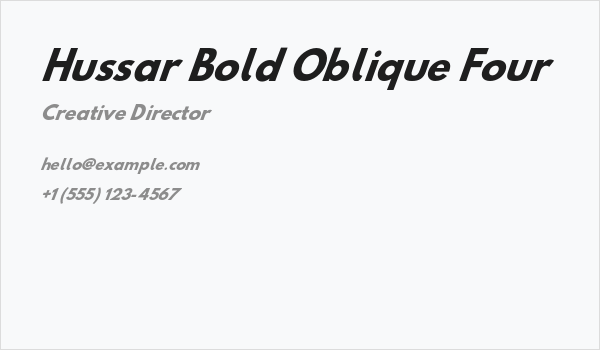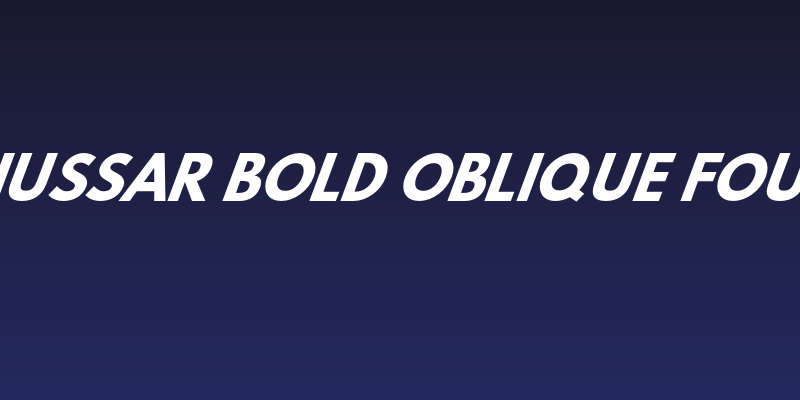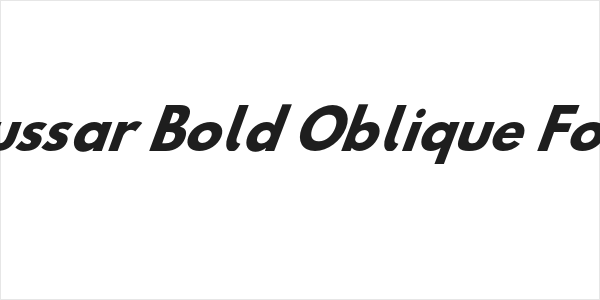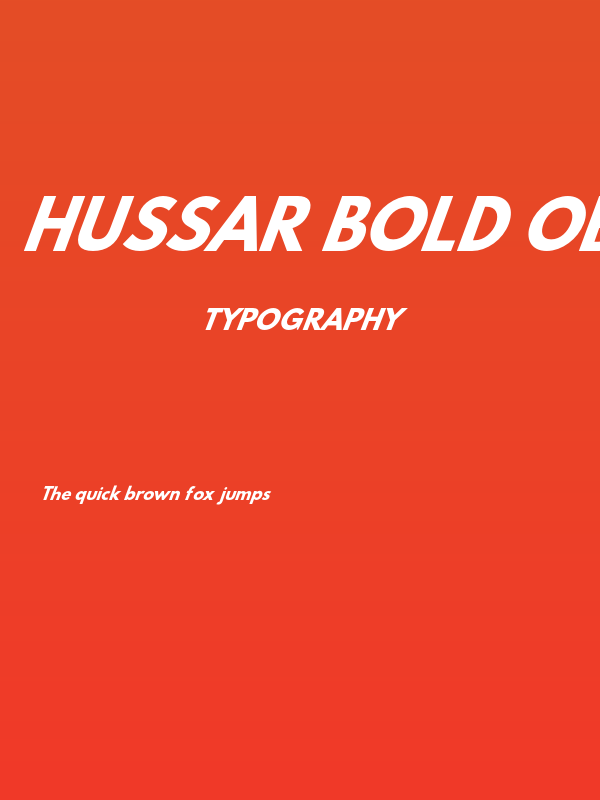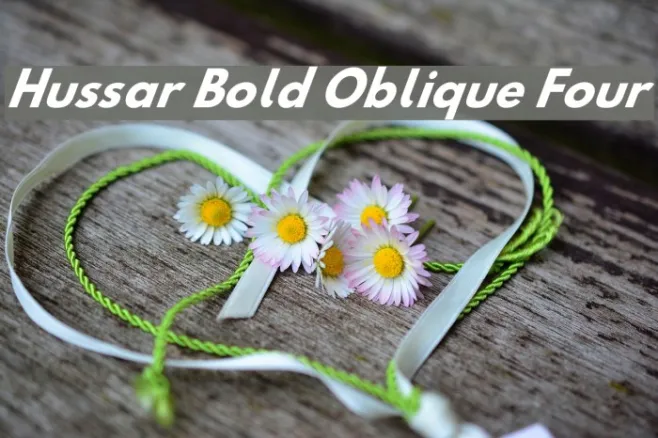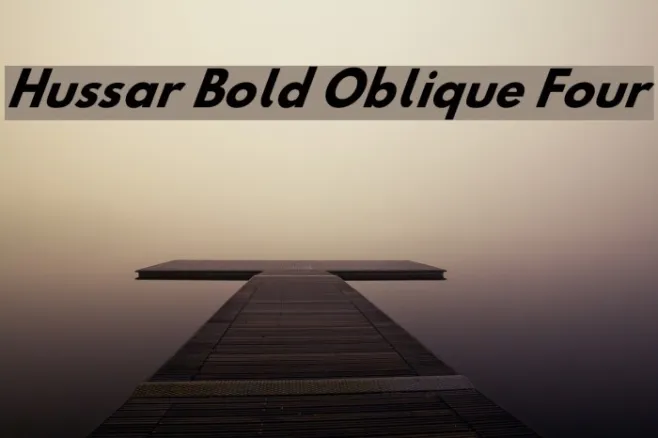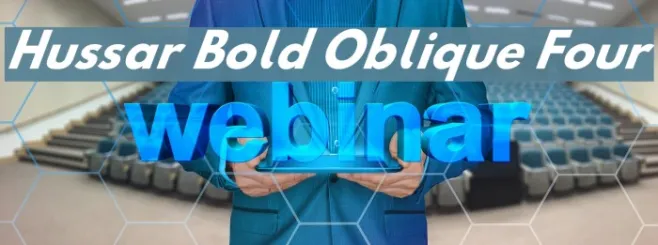
Hussar Bold Oblique Four Font
Hussar Bold Oblique Four Description
This font exhibits a bold and dynamic style with an oblique slant, giving it a sense of motion and energy. The characters are well-defined with a strong presence, making it suitable for impactful designs. The uppercase and lowercase letters maintain a consistent weight, ensuring readability and balance. The numerals are clear and robust, complementing the overall bold aesthetic. Special characters are included, adding versatility to its use. The font's design is modern and sleek, ideal for projects that require a contemporary and assertive look.
| Use Case | Headlines, Logos, Advertising |
| Proposed Projects | Ideal for branding, advertising, headlines, and any project requiring a bold, modern aesthetic. |